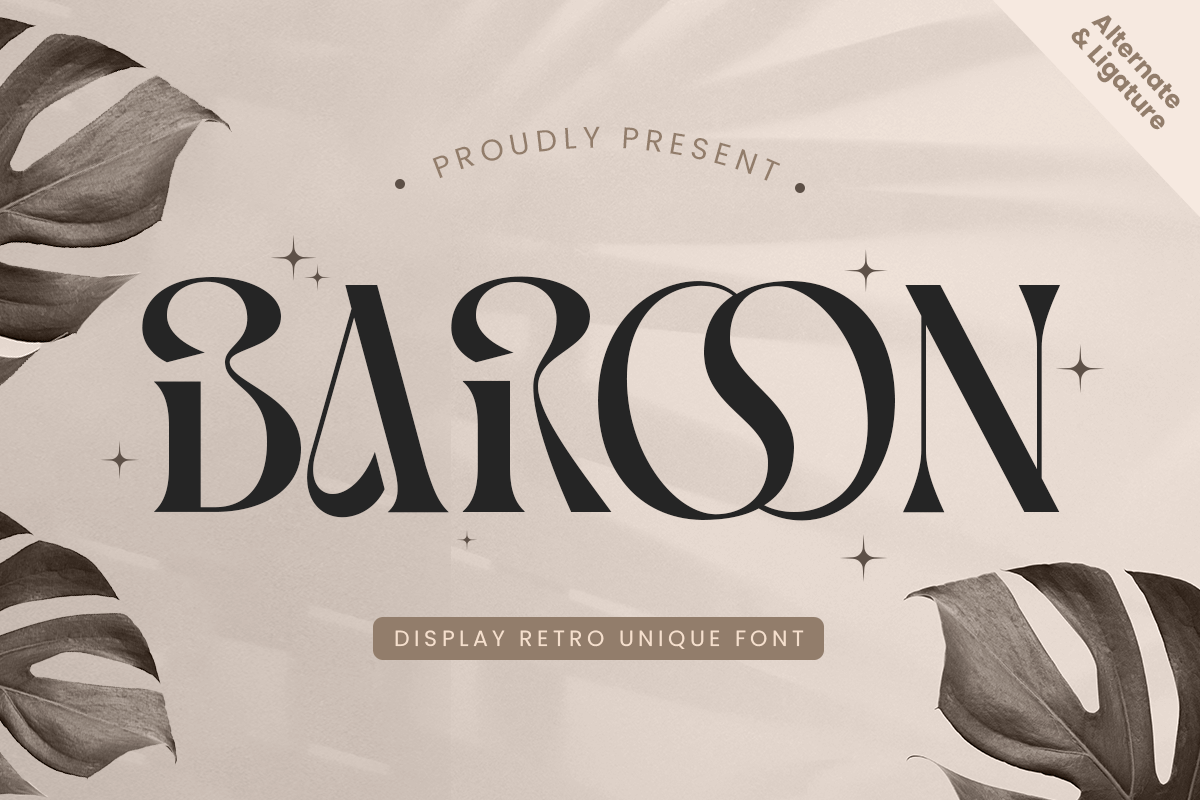
Baroon
-Display Retro Unique FontBaroon - Display Retro Unique Font
BAROON is a display retro unique font that combines bold, vintage charm with modern creativity. Inspired by the vibrant aesthetics of the 70s and 80s, this font brings a playful yet stylish flair to your design projects. Its distinctive letterforms and striking curves make it perfect for attention-grabbing logos, posters, retro branding, and creative typography.
Whether you're working on a vintage-themed poster, a logo for a music festival, or packaging for a quirky product, BAROON offers a retro vibe with a fresh twist. The bold and unique style ensures your designs stand out, while its versatility makes it suitable for both digital and print use.
BAROON – Display Retro Unique Font Features
Artistic retro-inspired letterforms with unique style
Playful, vintage design with modern appeal
OpenType features for enhanced typographic styling